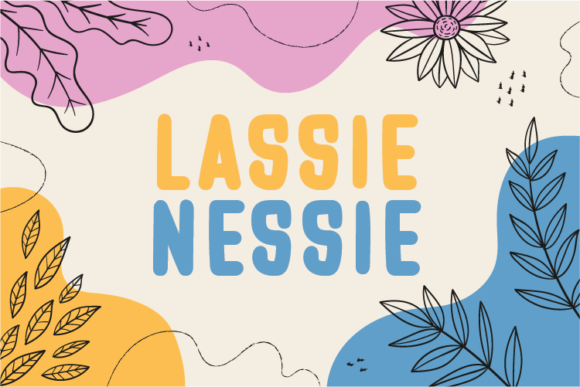
Embark on a whimsical adventure with Lassie Nessie, the captivating display font that sparks imagination and adds a touch of enchantment to your creative projects. Dive into the world of Lassie Nessie, a font family meticulously crafted by Hanna Bie, a renowned font artist with a passion for creating fonts that evoke emotion and uniqueness. This enchanting font is a true masterpiece, designed without altering a single node in each character's indentation, resulting in a typeface that is both visually stunning and refreshingly original.
Unleash your creativity and let Lassie Nessie guide you through a realm of endless possibilities. Whether you're crafting heartfelt quotes, adorning personal notes with a touch of whimsy, or designing eye-catching t-shirts and product designs, Lassie Nessie is your perfect companion. Its natural flow and effortless charm will transform your words into works of art, capturing the attention of your audience and leaving a lasting impression.
With Lassie Nessie, you'll discover a font that effortlessly blends playfulness and sophistication. Its organic curves and charming imperfections create a sense of authenticity and warmth, while its strong and sturdy structure ensures readability and impact. Experience the magic of a font that speaks to the heart and captivates the eye, making your creative endeavors truly unforgettable.